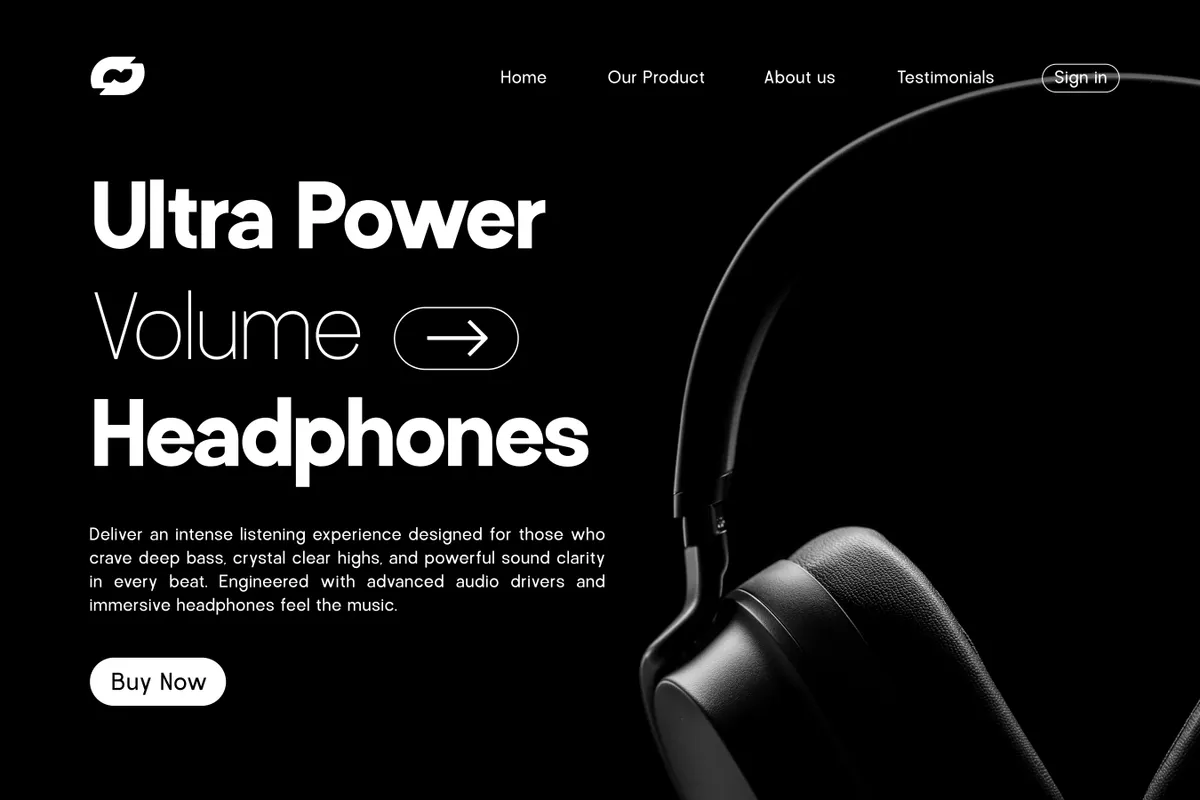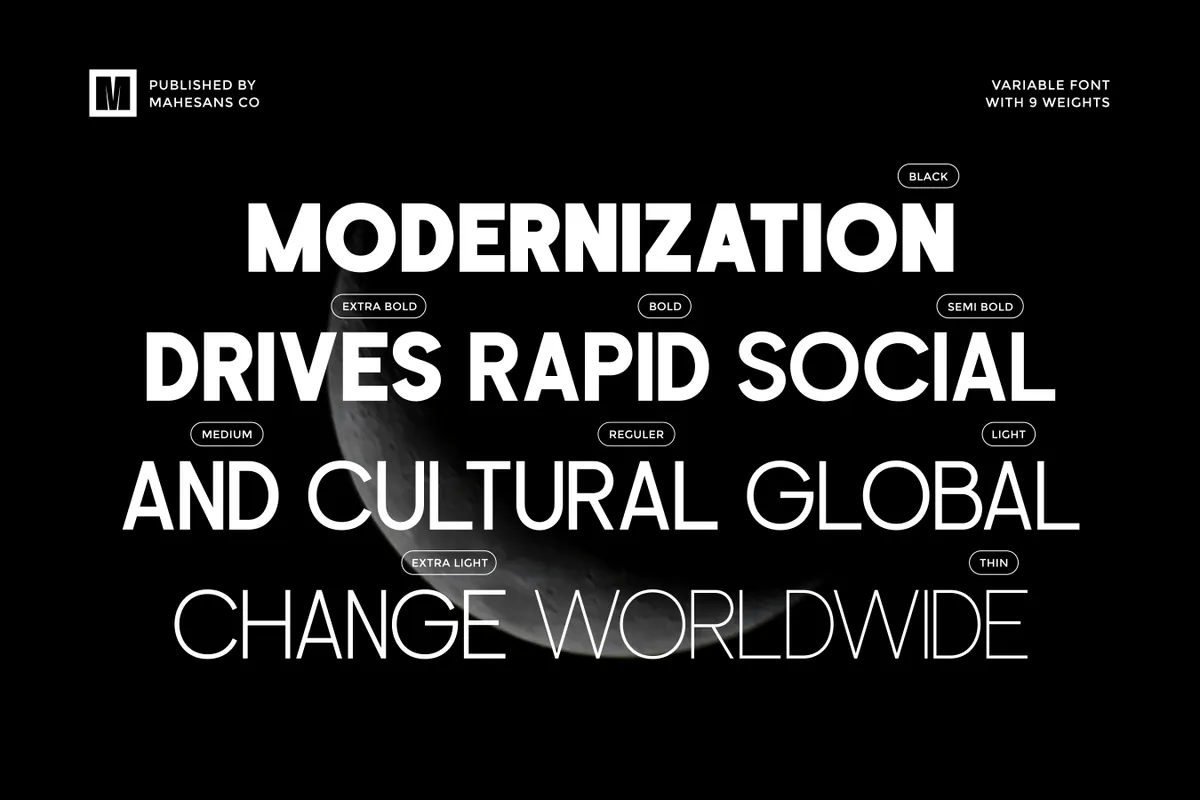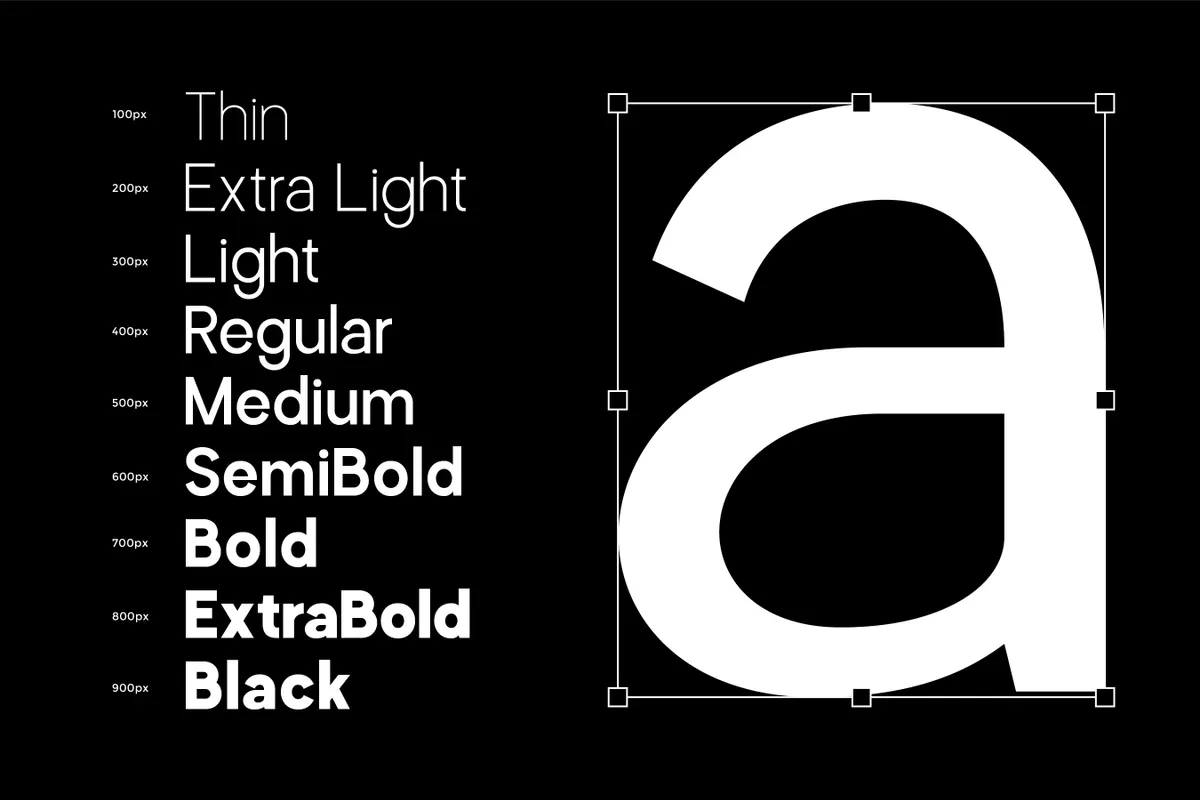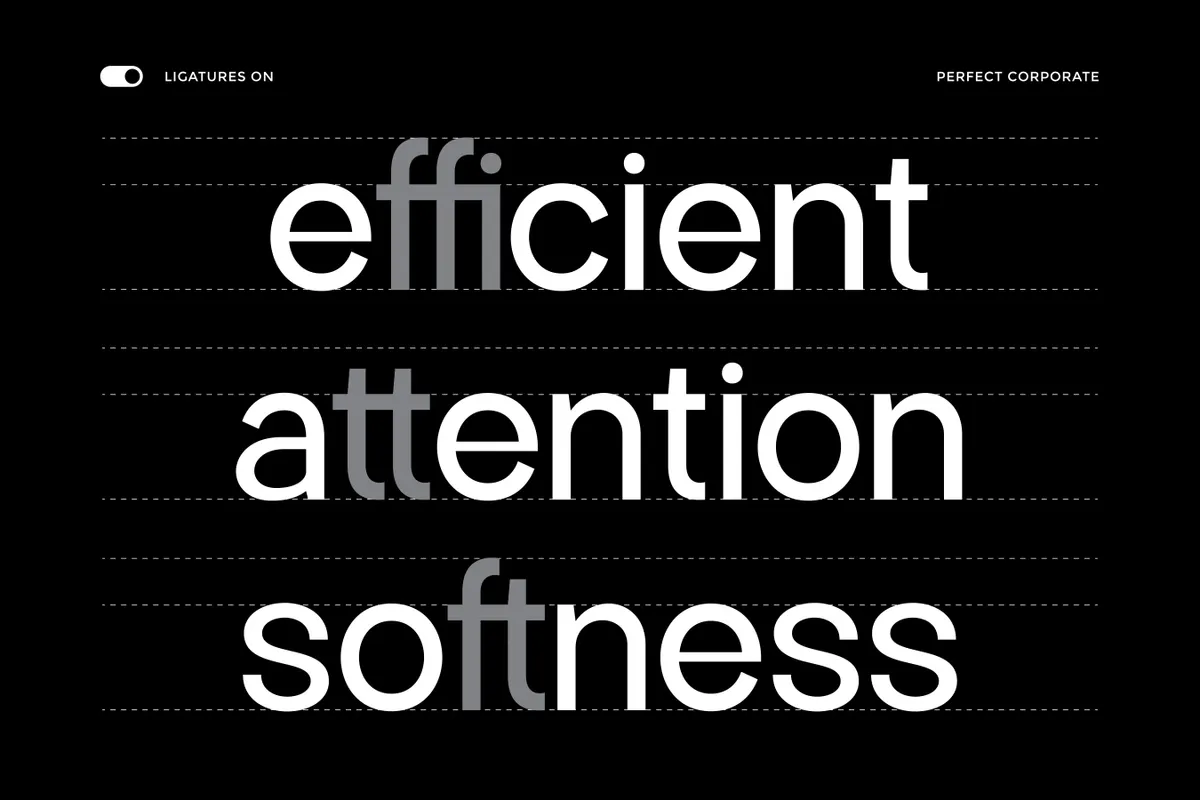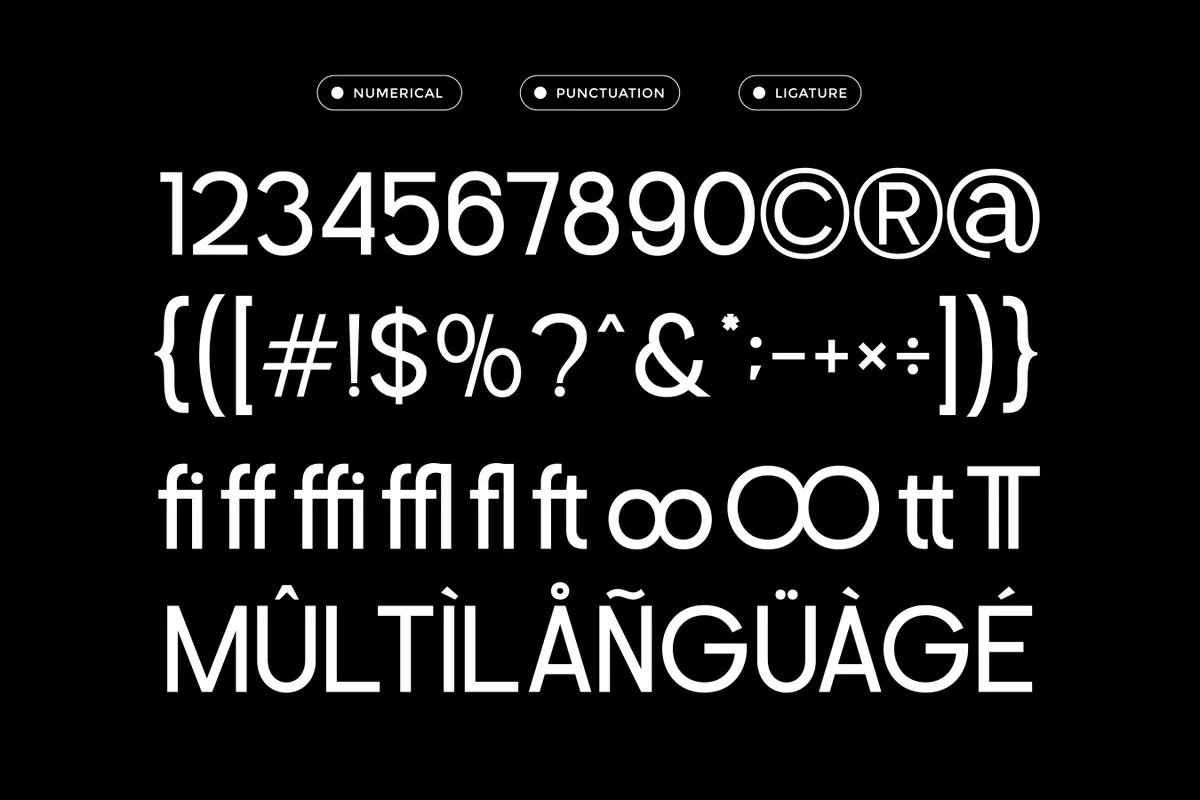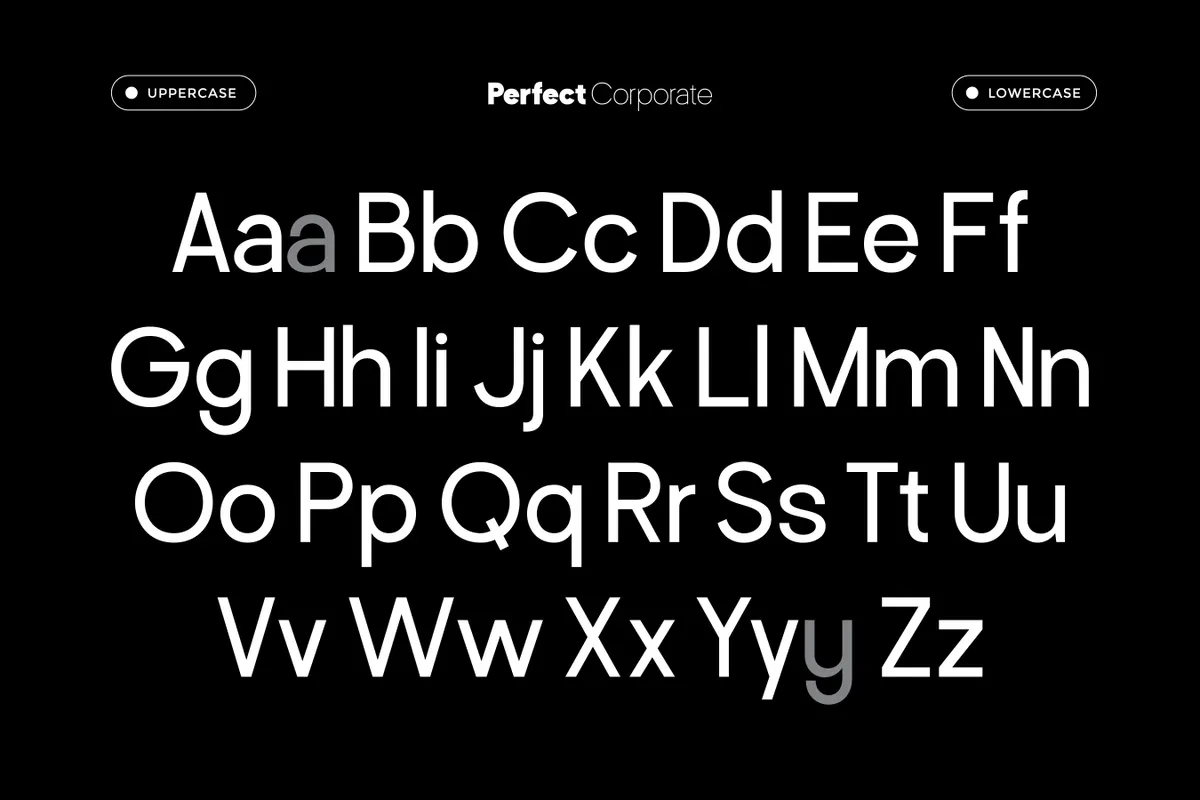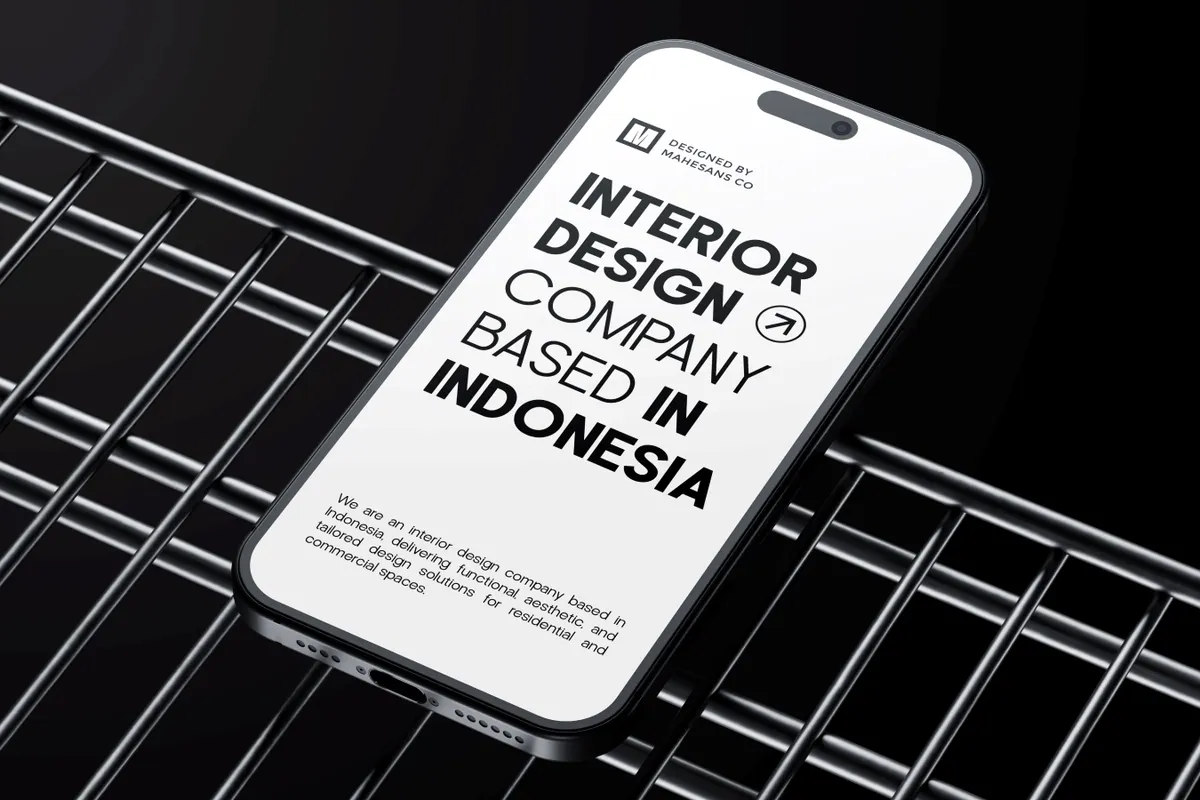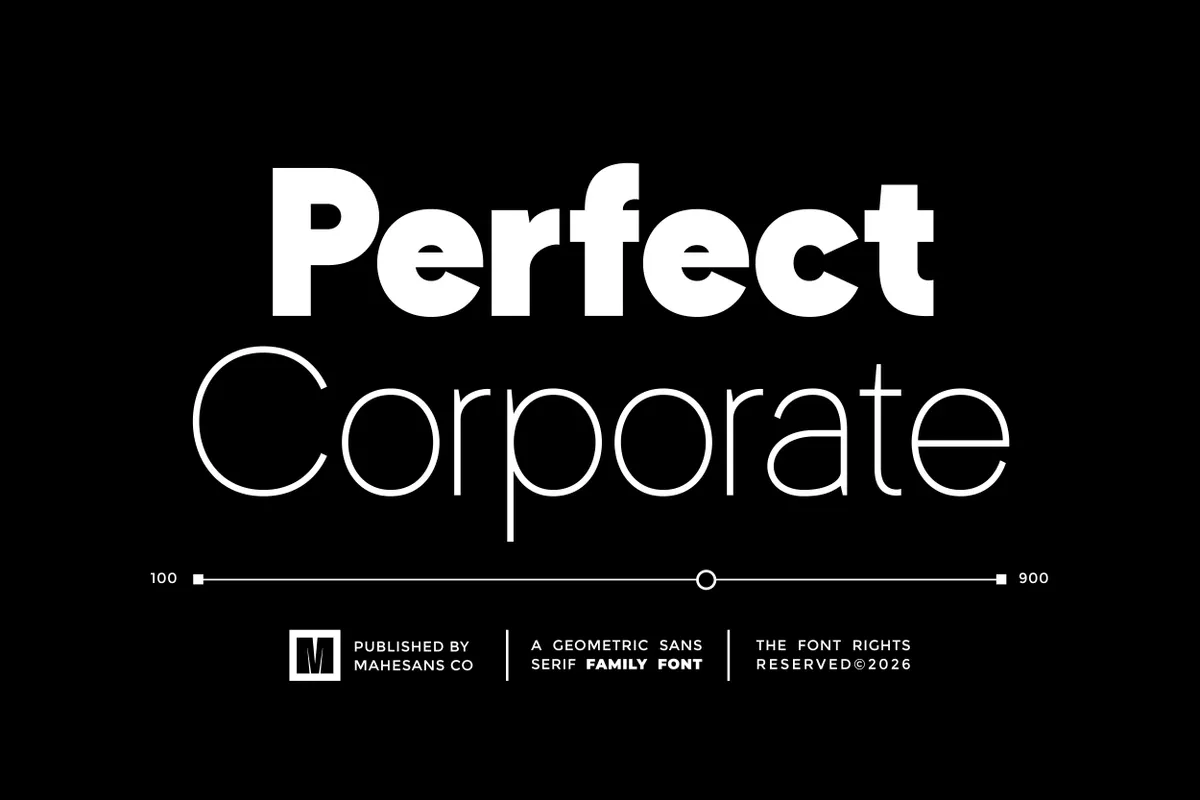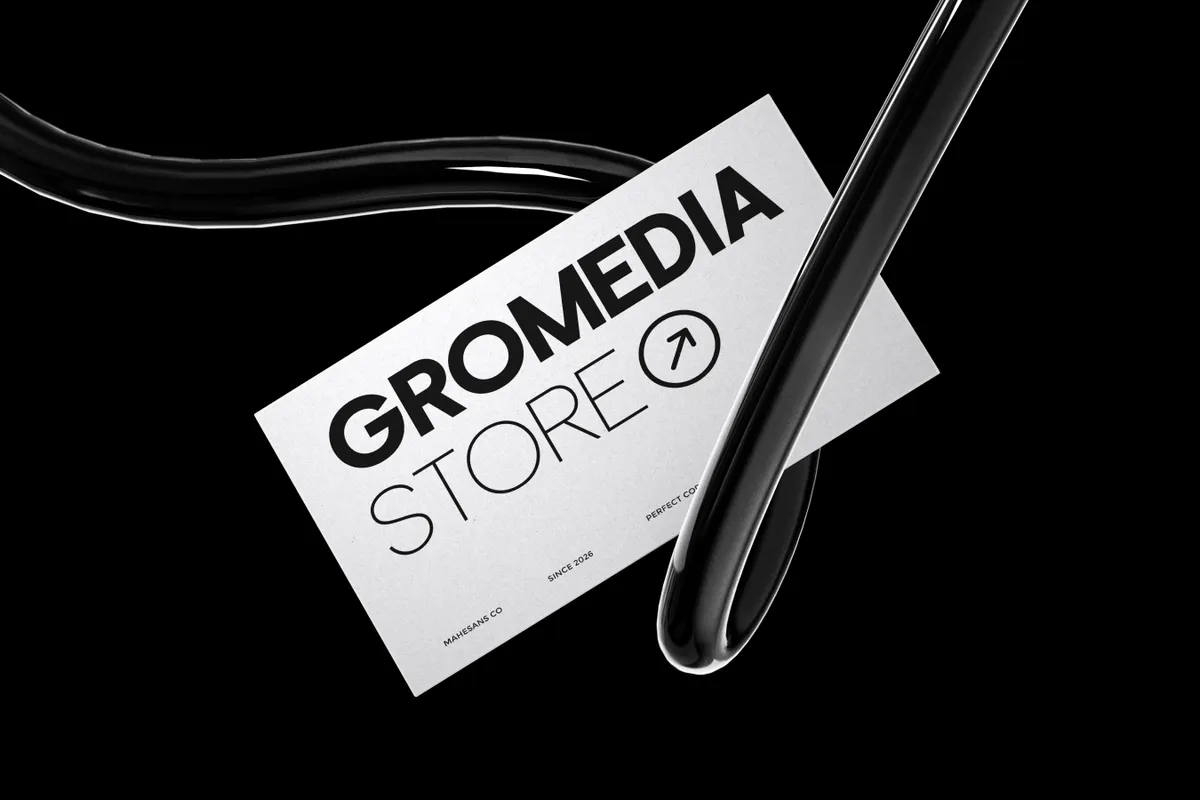
Perfect Corporate Sans Serif Family
Perfect Corporate runs on circular bowls and even monoline strokes, the geometric sans serif font language that went through Bauhaus signage and later through airport wayfinding. Nine weights take it from a hairline Thin, where the counters open right up, to a Black that closes them almost shut. The Thin is a display weight and not much else; the working range starts around Light.
The family is at its best where one brand voice has to hold across a lot of surfaces. Use it for annual reports, pitch decks, product pages, app interfaces, business cards, signage systems, editorial standfirsts, and price tables.
- 9 styles: Thin, ExtraLight, Light, Regular, Medium, SemiBold, Bold, ExtraBold, Black;
- uppercase & lowercase;
- numerals, punctuation & symbols;
- standard and discretionary ligatures, stylistic alternates;
- Western European Latin, with partial Latin Extended-A;
- 222 glyphs per style.